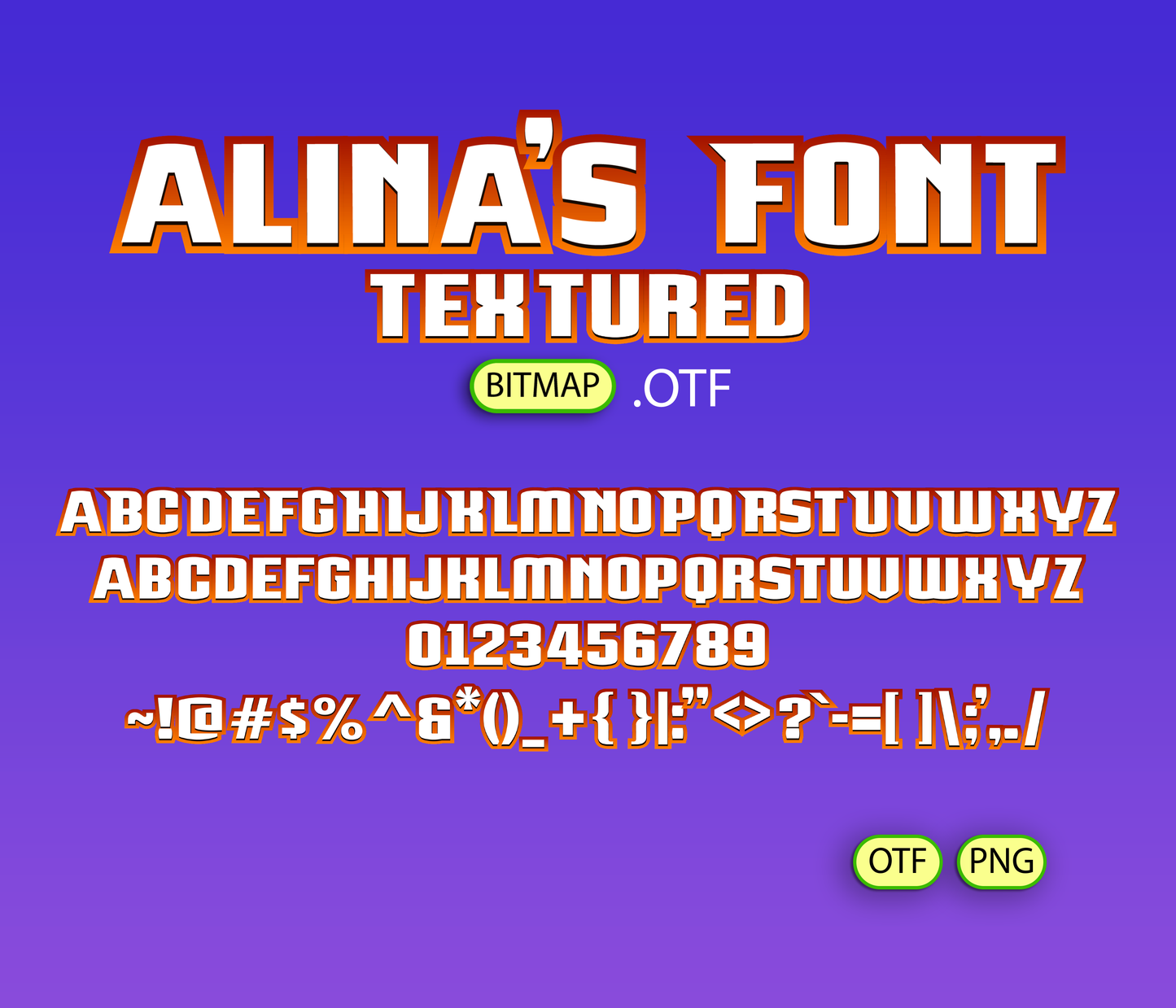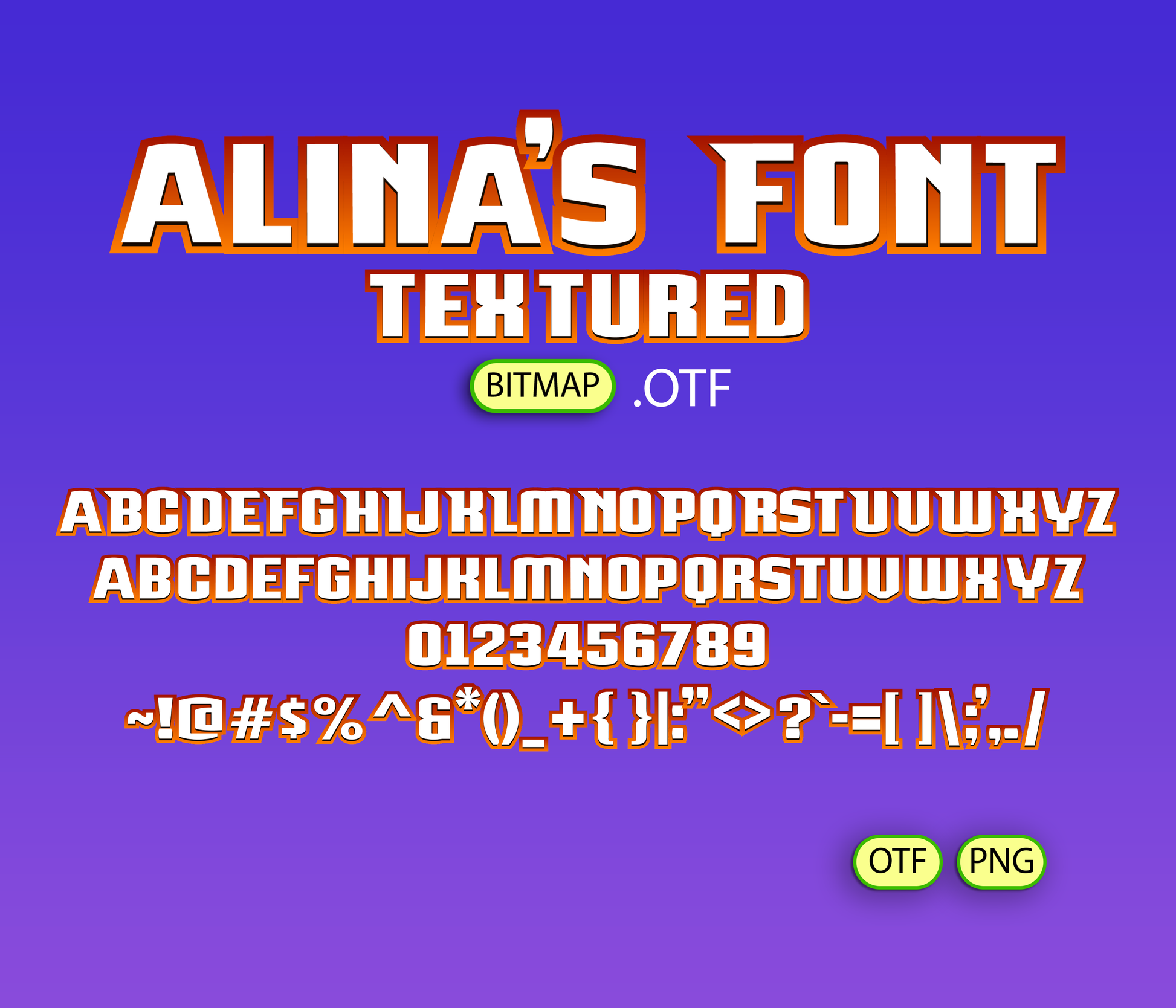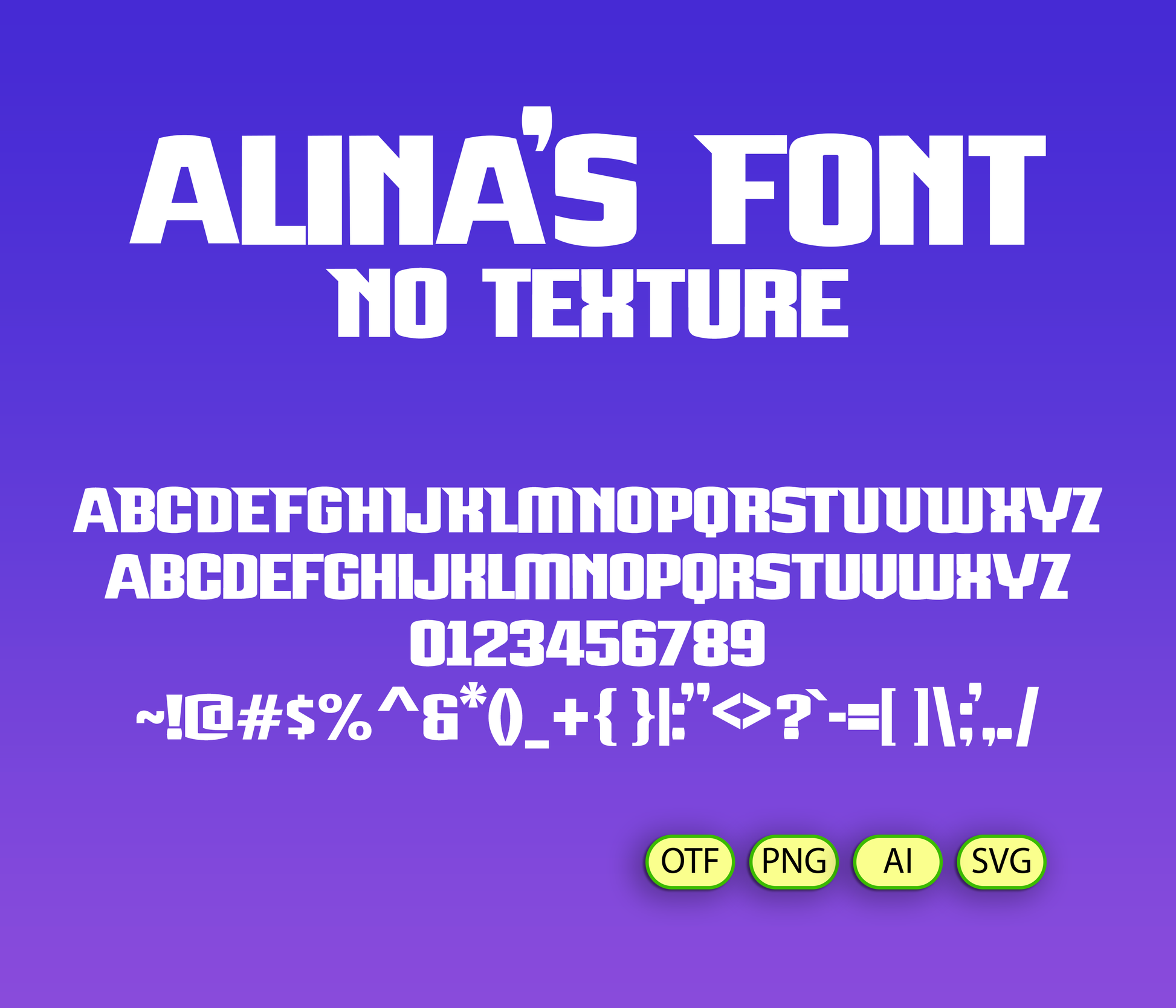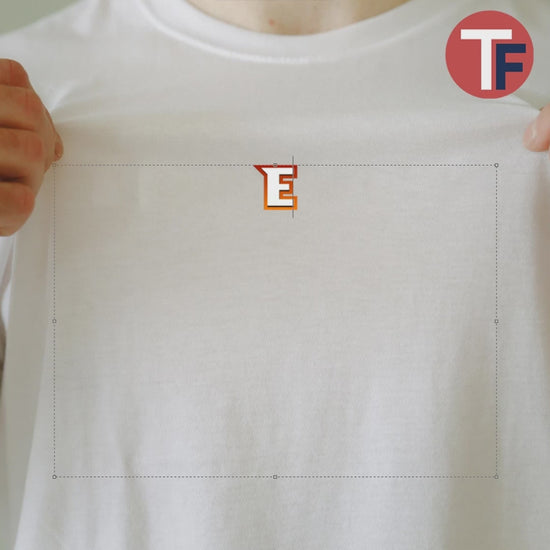
Epic Showdown Font Textured
Epic Showdown Font: Inspired by Heroic Confrontations
Embark on a thrilling adventure with our Epic Showdown font, inspired by the epic confrontations between a blue supervillain-turned-hero and his formidable adversaries. This vibrant and dynamic typeface encapsulates the essence of rivalry and teamwork, featuring elements that reflect the hero's witty inventiveness and the dark allure of his foes. Designed for fans, creators, and anyone looking to infuse their projects with excitement, humor, and action-packed energy.
What font is the Epic Showdown font?
This typeface balances the contrast between sleek, futuristic style and sinister vibes. With sharp, angular letters hinting at technological advancements and jagged lines capturing the chaos brought by villains, this font visually represents the battle for a city. The comprehensive character set allows for expressive communication, ideal for crafting messages resonating with themes of redemption, courage, and the eternal struggle between good and evil.
Application and Customization
The Epic Showdown font is versatile, suitable for a wide array of creative and promotional projects:
- Game Titles and Packaging: Perfect for video games inspired by the movie, offering a title font that captures gameplay excitement.
- Movie Posters and Fan Art: Create standout designs depicting epic showdowns and key moments of the story.
- Merchandise Design: Ideal for T-shirts, posters, and accessories, allowing fans to showcase favorite characters and moments.
- Social Media Campaigns: Engage fans with visually striking content highlighting the humor and action of heroic battles.
Feature Highlights and Bonuses
- Comprehensive Character Set: Equipped with an extensive selection of characters to support creative projects, from simple text-based designs to complex compositions requiring special symbols.
Embrace the Epic Showdown
The Epic Showdown font is more than just a set of letters; it's an embodiment of the clash between genius and chaos, offering fans and creators a tool to express their enthusiasm and creativity. Whether used for personal projects, fan communities, or commercial endeavors, this font adds a layer of excitement and engagement, making every creation a powerful tribute to the adventure, humor, and heart of heroic confrontations. Dive into the battle, and let your designs reflect the epic tale of heroism and intrigue.